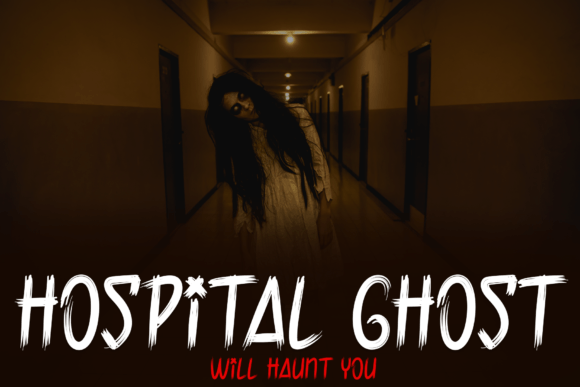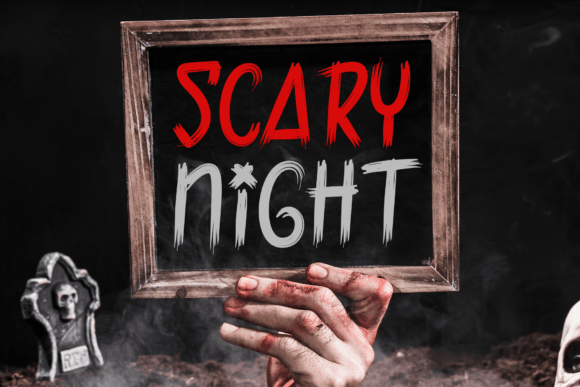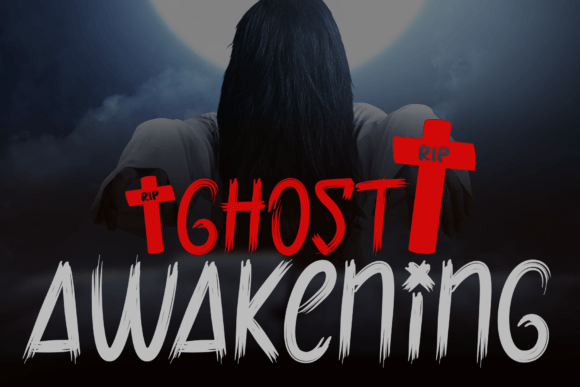
Introduction to Death Rabbit Font
Introducing Death Rabbit Font, a chilling script font that embraces the macabre essence of Halloween.
With its twisted strokes and haunting curves, this font evokes a sense of darkness and whimsical terror Perfect for horror-inspired designs, gothic invitations, and eerie projects, Death Rabbit Font adds an eerie touch to your creations.
Key Features of Death Rabbit Font
Why Choose Death Rabbit Font?